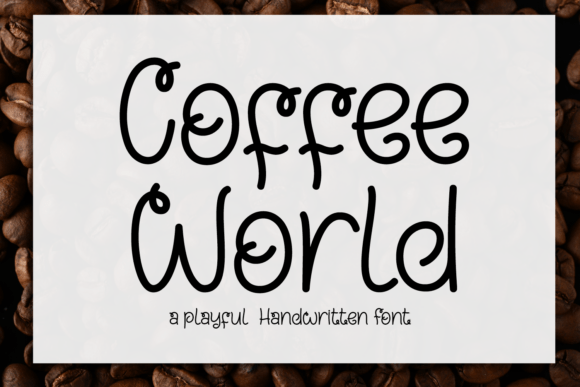
Coffee World Font: A Whimsical Typeface for Creative Projects
Coffee World Font is a delightful, handwritten typeface that exudes a playful personality. Its bouncy letterforms, loopy swashes, and casual charm make it an ideal choice for lighthearted projects that require a touch of fun. In this article, we’ll explore the features and benefits of Coffee World Font, and discuss how it can be used to add a creative and welcoming vibe to various design projects.
What is Coffee World Font?
Coffee World Font is a whimsical, handwritten typeface designed to capture the essence of a carefree and playful spirit. Its hand-crafted quality and cheerful style make it perfect for conveying a warm and welcoming atmosphere. The font features bouncy letterforms, loopy swashes, and casual charm, which give it a unique and distinctive look.
Key Features of Coffee World Font
- Whimsical and Handwritten: Coffee World Font is a handwritten typeface that boasts a whimsical and playful personality.
- Bouncy Letterforms: The font features bouncy letterforms that add to its playful and carefree spirit.
- Loopy Swashes: The font includes loopy swashes that add a touch of elegance and sophistication.
- Casual Charm: Coffee World Font has a casual charm that makes it perfect for lighthearted projects.
- Hand-Crafted Quality: The font has a hand-crafted quality that gives it a unique and distinctive look.
Use Cases for Coffee World Font
Coffee World Font is a versatile typeface that can be used in a variety of design projects. Here are some use cases where the font excels:
- Café Menus: Coffee World Font is perfect for café menus, as it adds a touch of warmth and welcoming charm.
- Product Packaging: The font is ideal for product packaging, as it can help create a playful and eye-catching design.
- Children’s Books: Coffee World Font is a great choice for children’s books, as it can help create a fun and imaginative atmosphere.
- Marketing Materials: The font can be used in marketing materials, such as brochures, flyers, and posters, to add a touch of creativity and playfulness.
Benefits of Using Coffee World Font
Using Coffee World Font in your design projects offers several benefits. Here are some of the advantages of using this font:
- Unique and Distinctive Look: Coffee World Font has a unique and distinctive look that sets it apart from other fonts.
- Playful and Creative Vibe: The font can help create a playful and creative vibe, which is perfect for lighthearted projects.
- Easy to Read: Coffee World Font is easy to read, making it perfect for body text and headlines.
- Versatile: The font is versatile and can be used in a variety of design projects.
Tips for Using Coffee World Font
Here are some tips for using Coffee World Font in your design projects:
- Pair with Other Fonts: Coffee World Font can be paired with other fonts to create a unique and interesting combination.
- Use in Headlines and Body Text: The font can be used in headlines and body text to create a cohesive look.
- Experiment with Colors: Coffee World Font can be used with a variety of colors to create a unique and eye-catching design.
- Keep it Simple: Keep your design simple and clean to allow the font to shine.
Coffee World Font is a whimsical and handwritten typeface that bursts with playful personality. Its bouncy letterforms, loopy swashes, and casual charm make it perfect for lighthearted projects. With its hand-crafted quality and cheerful style, Coffee World Font is a fantastic choice for conveying a warm, welcoming, and creative vibe. Whether you’re designing a café menu, product packaging, or children’s book, Coffee World Font is a great choice.
- What is Coffee World Font? Coffee World Font is a whimsical, handwritten typeface designed to capture the essence of a carefree and playful spirit.
- What are the key features of Coffee World Font? The font features bouncy letterforms, loopy swashes, and casual charm, which give it a unique and distinctive look.
- What are some use cases for Coffee World Font? Coffee World Font is perfect for café menus, product packaging, children’s books, and marketing materials.
- What are the benefits of using Coffee World Font? Using Coffee World Font offers several benefits, including a unique and distinctive look, playful and creative vibe, and ease of reading.